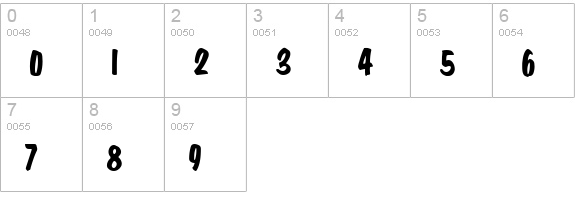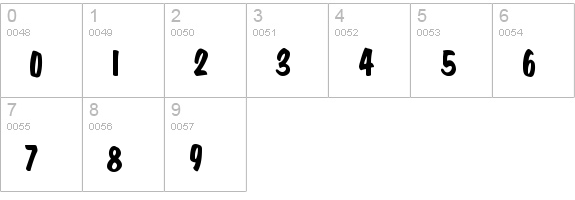
Big Nib-Condensed Normal Font Details
Big Nib-Condensed Normal is the standard, neutral, condensed-width variant in the Big typeface family \xE2\x80\x94 well suited to general body text, paragraphs, and standard typographic work.
Big Nib-Condensed Normal is a modern and distinctive font that exudes sophistication and style. Its condensed design makes it perfect for creating eye-catching headlines and titles. The bold strokes and unique curves of each character give this font a dynamic and powerful presence on any design project. The best part about Big Nib-Condensed Normal font is that it is completely free to download at FontsMarket.com. Whether you are working on a branding project, poster design, or any other creative endeavor, this font will surely elevate your work to the next level. So go ahead and download Big Nib-Condensed Normal font today and unleash your creativity with this amazing typeface!